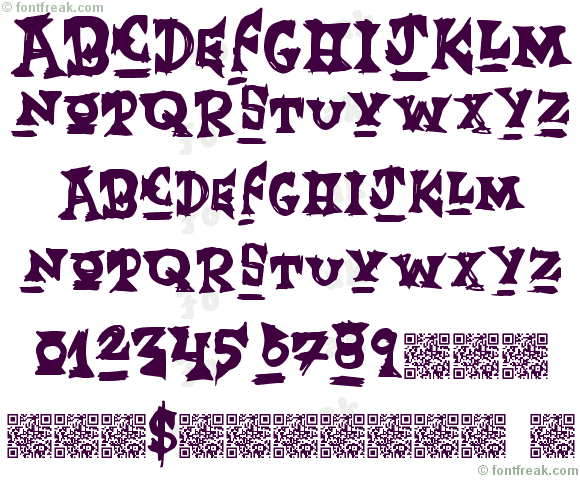
EventMaker
About EventMaker
The EventMaker font by Xerographer Fonts is a distinctive display typeface that brings a unique flair to any design project. With its bold, stylized appearance, this font captures attention through its irregular, jagged edges and dynamic character shapes. The strokes vary in weight, creating a sense of movement and energy that is perfect for lively events or promotional materials. The spacing between characters is generous, enhancing readability while still maintaining an artistic touch.
EventMaker is ideal for various use cases, including eye-catching event posters, festive invitations, and vibrant branding for music festivals or art shows. Its playful aesthetic makes it especially suitable for creative projects aimed at younger audiences or those looking to convey a sense of excitement and fun. Small business owners can utilize this font for product labels or social media graphics that need to stand out. Graphic designers will find it a versatile addition to their toolkit, perfect for projects that require a bold statement.
Targeting graphic designers, small business owners, and content creators alike, the EventMaker font free download is an excellent resource for anyone looking to inject personality into their work. Its unique design not only differentiates it from standard fonts but also allows it to serve as a focal point in any layout.
What sets the EventMaker font apart is its ability to blend artistic expression with functionality. It offers a fresh alternative to conventional typefaces, making it a fantastic choice for projects that aim to capture the essence of celebration and creativity. Whether you're designing for a special occasion or a brand that thrives on innovation, EventMaker ensures your message stands out with flair.